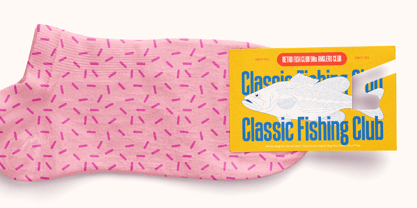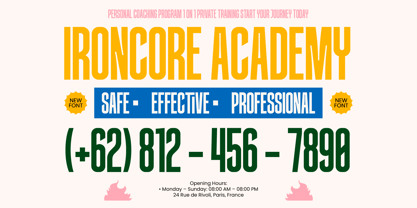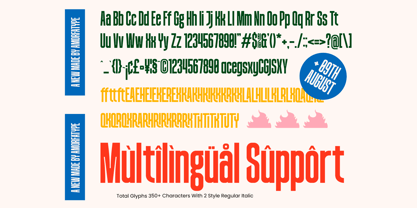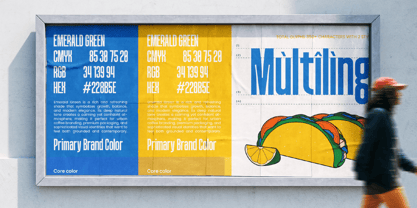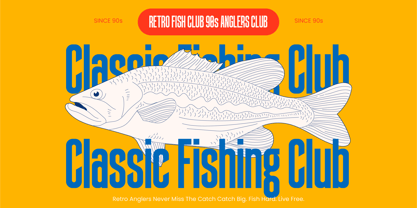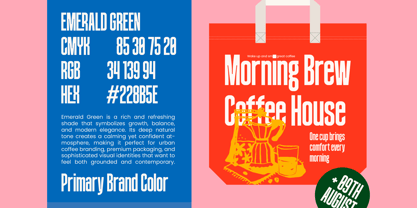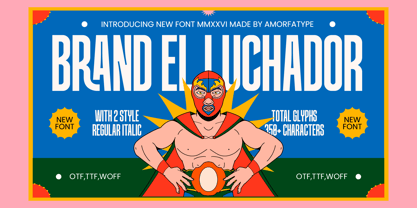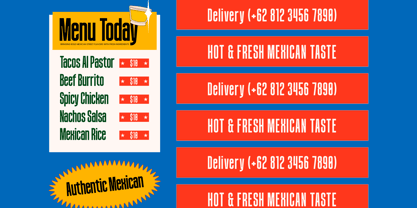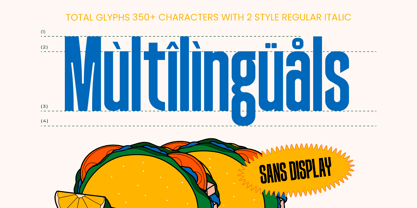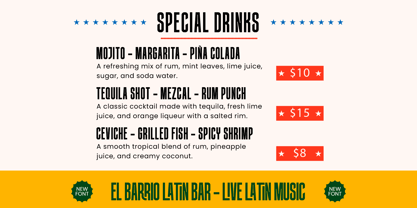
Brandel Luchador
by Amorfa Type
The Brandel Luchador Font Family was designed by Shiddiq Roihan and published by Amorfa Type. Brandel Luchador contains 2 styles and family package options. More about this family
Brandel Luchador – Tall Sans Serif Display Font Brandel Luchador is a tall condensed sans serif display font designed with a bold, energetic personality inspired by lucha libre posters, Mexican street graphics, retro advertising, and vibrant urban signage. The strong vertical proportions and compact letterforms make it perfect for large headlines, impactful branding, and eye-catching display typography. Font Features Tall Condensed Sans Serif Display Typeface Style 40 Stylistic Alternates 13 Ligatures 383 Total Glyphs Multilingual Latin Support Strong Headline Impact